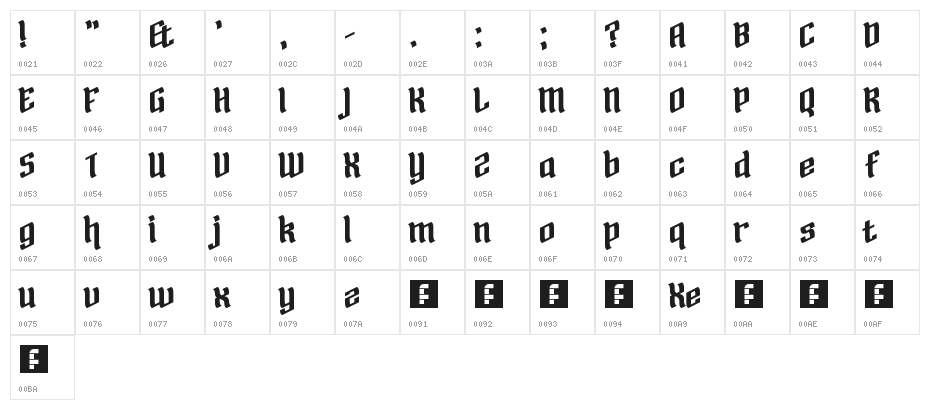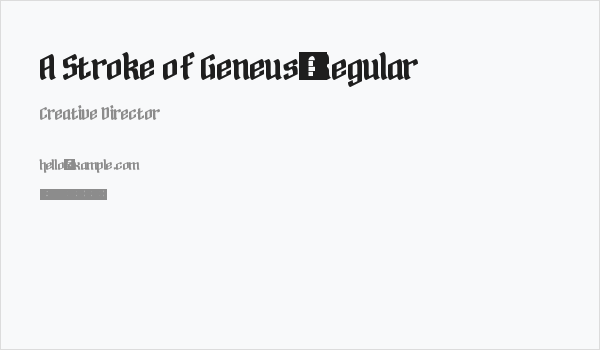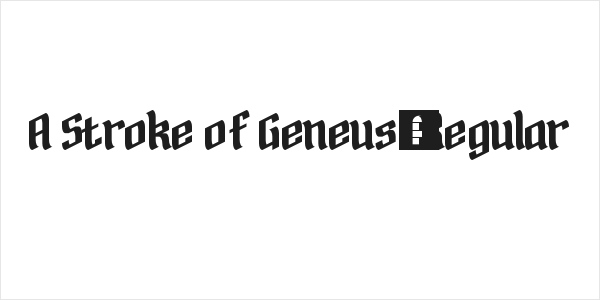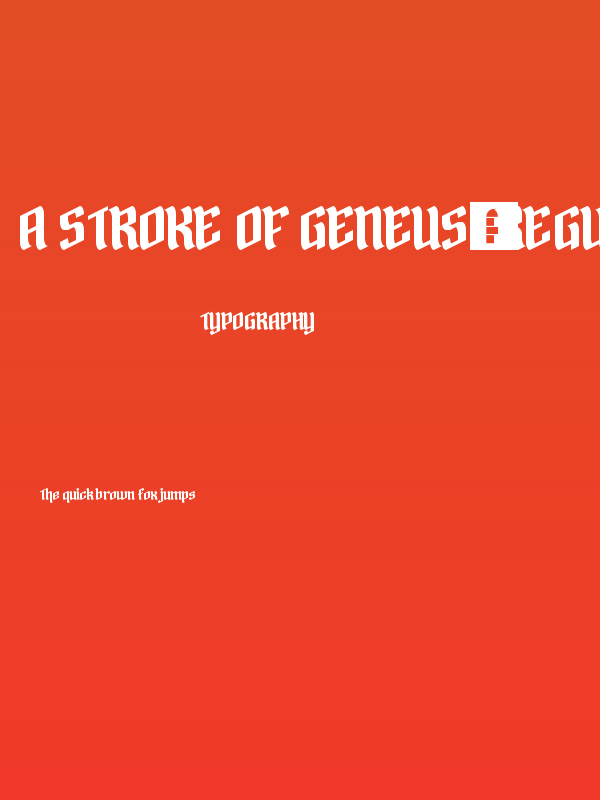
A Stroke of Geneus1 Regular Font
A Stroke of Geneus1 Regular Description
This font features a bold, angular design reminiscent of traditional blackletter styles. The characters are sharply defined with strong vertical strokes and pointed serifs, giving it a dramatic and authoritative appearance. The uppercase letters are particularly striking, with a gothic influence that is both classic and modern. The lowercase letters maintain the same angularity, ensuring consistency throughout the typeface. The numerals and special characters follow the same stylistic cues, making them cohesive with the rest of the font. This typeface is ideal for projects that require a bold statement or a historical touch.
| Proposed Projects | Suitable for branding, posters, book covers, and any design needing a gothic or historical flair. |